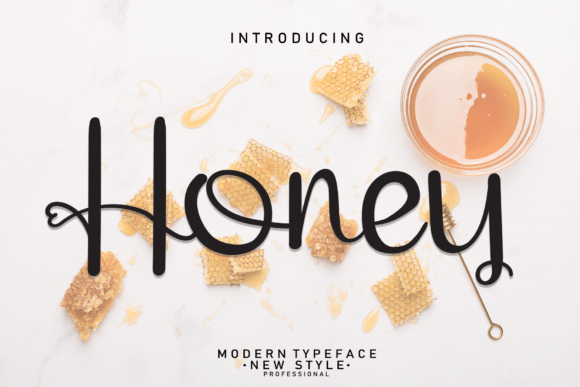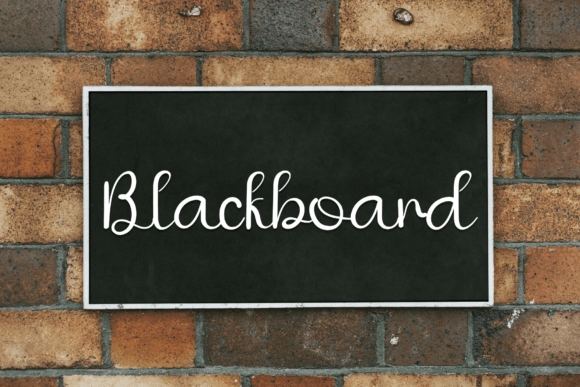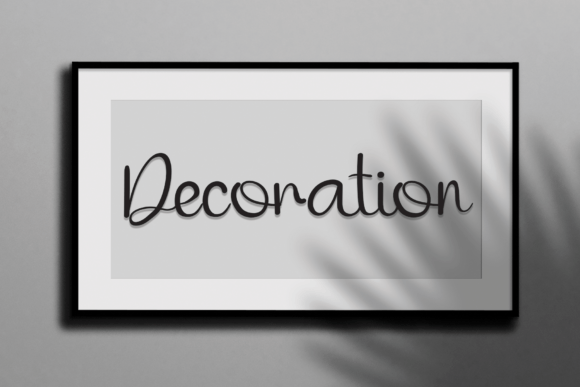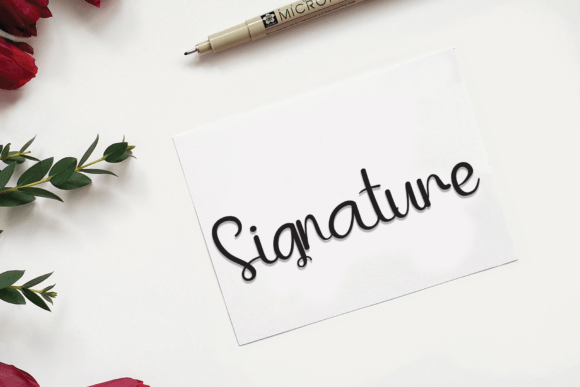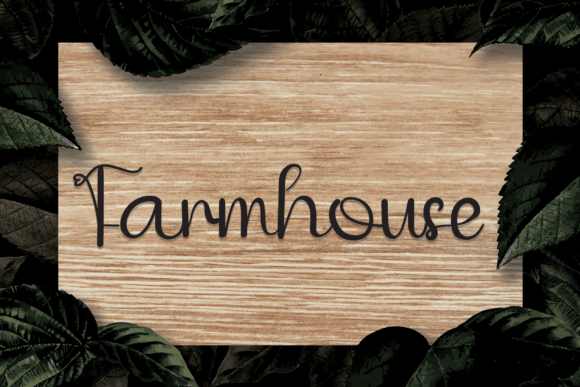
Honey Font
About Honey Font
The Honey Font Download is a fun and friendly handwritten typeface that adds warmth, creativity, and personality to your designs. With its casual curves and smooth handwritten flow, Honey offers a natural look that feels personal yet polished. As a result, it is an excellent choice for both personal projects and professional branding.
Moreover, Honey adapts seamlessly across print and digital designs. Whether you’re creating greeting cards, working on branding materials, or preparing social media graphics, this font maintains strong readability and style. Its playful strokes make it stand out without losing its balance and clarity.
Features of Honey Font
When you choose the Honey Font Download, you’ll enjoy several standout features:
• A playful handwritten style with smooth, casual curves
• Great readability at both small and large sizes
• A versatile look that suits personal and professional designs
• Balanced letterforms that keep designs polished and clear
• A natural handwritten feel that adds authenticity to projects
Best Uses for Honey Font
The Honey Font Download works beautifully across many creative contexts. For example, it is perfect for:
• Greeting cards and invitations – Add warmth and personality to messages
• Craft projects – Enhance handmade designs with charm and creativity
• Logos and branding – Build approachable and stylish brand identities
• Social media graphics – Create posts that stand out on Instagram, Pinterest, and blogs
• Event posters and flyers – Bold, handwritten strokes that attract attention
• Product packaging and stationery – A casual yet professional touch for multiple uses
Because of its versatility, Honey quickly becomes a favorite font for designers who want both style and flexibility.
Why Choose Honey Font
The Honey Font Download stands out from generic handwritten fonts by blending casual friendliness with professional structure. Its natural handwritten strokes feel authentic and warm, while its neat design ensures clarity across both print and digital projects. In addition, it can be used for a variety of industries, from lifestyle branding to DIY crafts.
Furthermore, Honey is beginner-friendly yet detailed enough to satisfy professionals. As a result, it saves time while still delivering polished, high-quality results.
In conclusion, the Honey Font Download is a fun, friendly, and versatile handwritten typeface that adds personality and charm to your designs. From invitations and crafts to branding and social media, this font ensures your projects are both stylish and engaging.